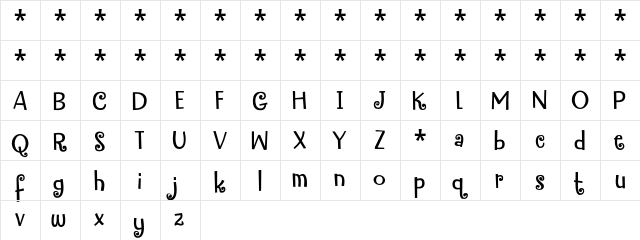
Funky Mother DEMO Regular
Design Context for Funky Mother DEMO Typeface
Funky Mother DEMO trades formality for fun, with bouncy, characterful letterforms that bring warmth and energy to any project.
Font Pairing: Pairs well with a rounded or humanist sans for body copy, maintaining the friendly tone without relying on Funky Mother DEMO to carry extended reading.
Pro Tip: Avoid using Funky Mother DEMO for long passages of text — it works best for headlines, labels, and short calls to action.